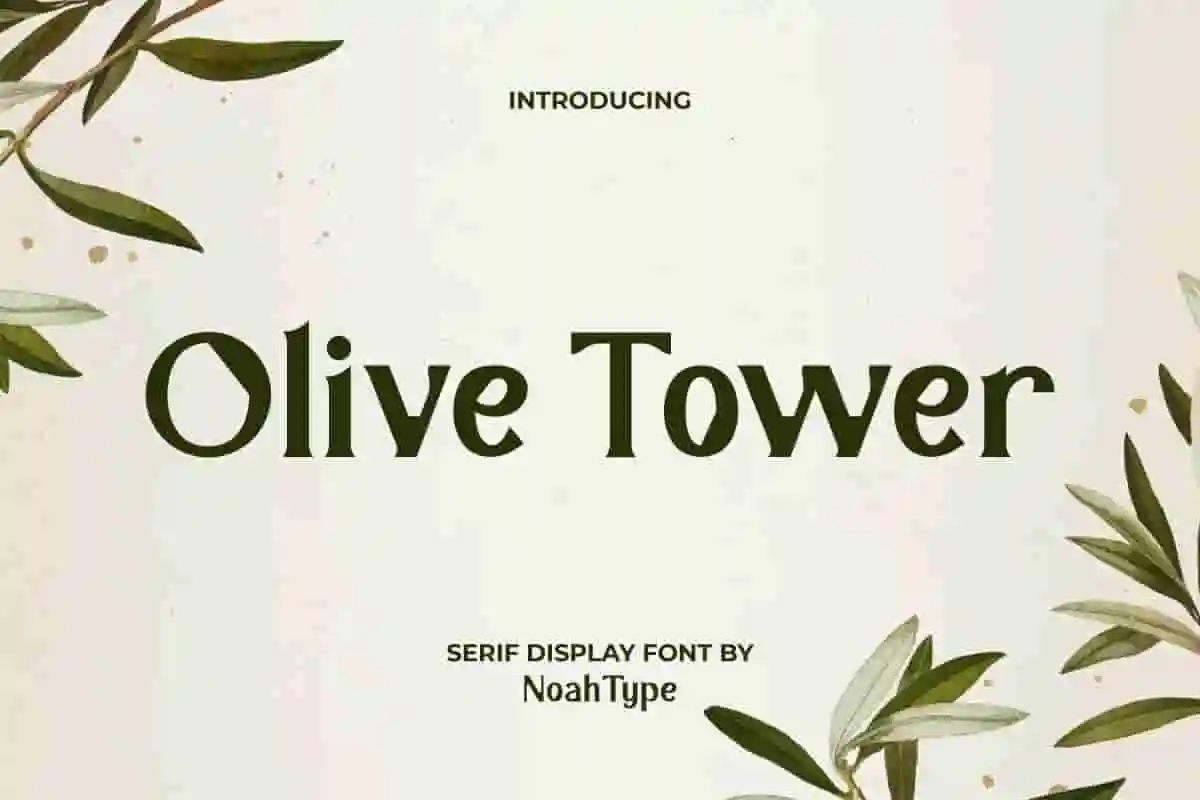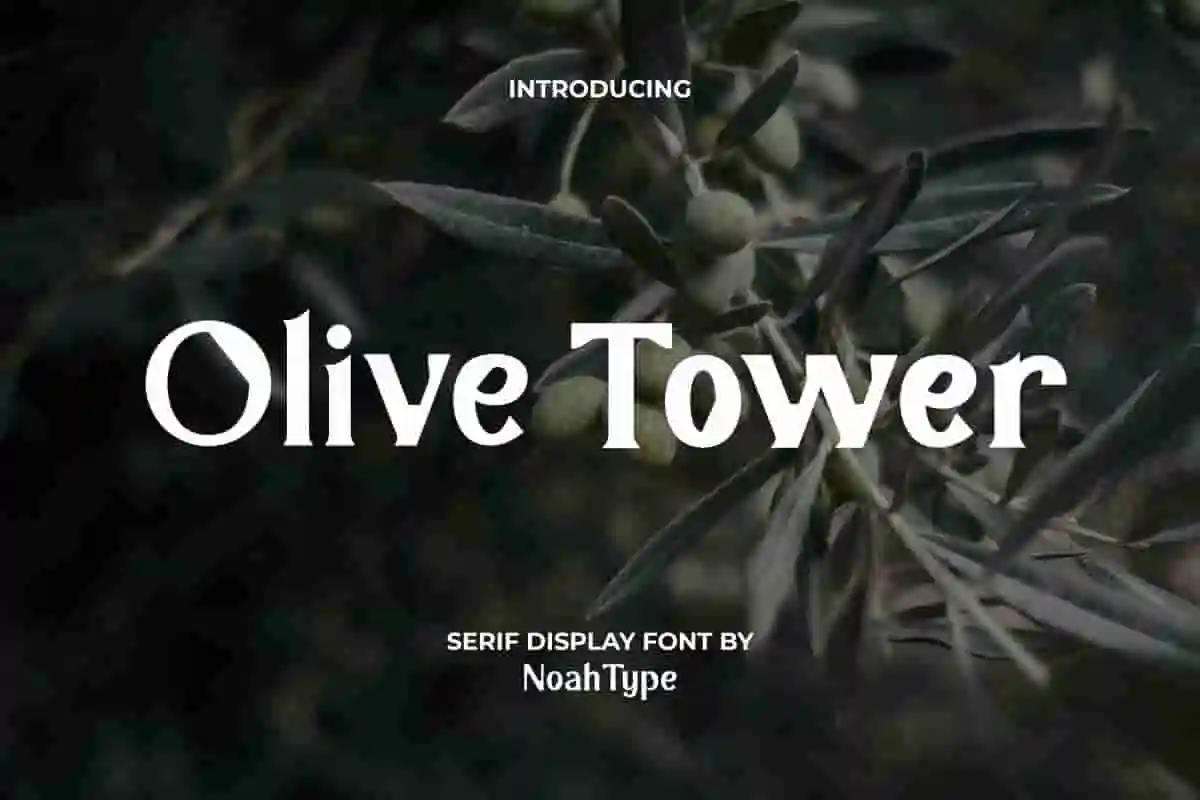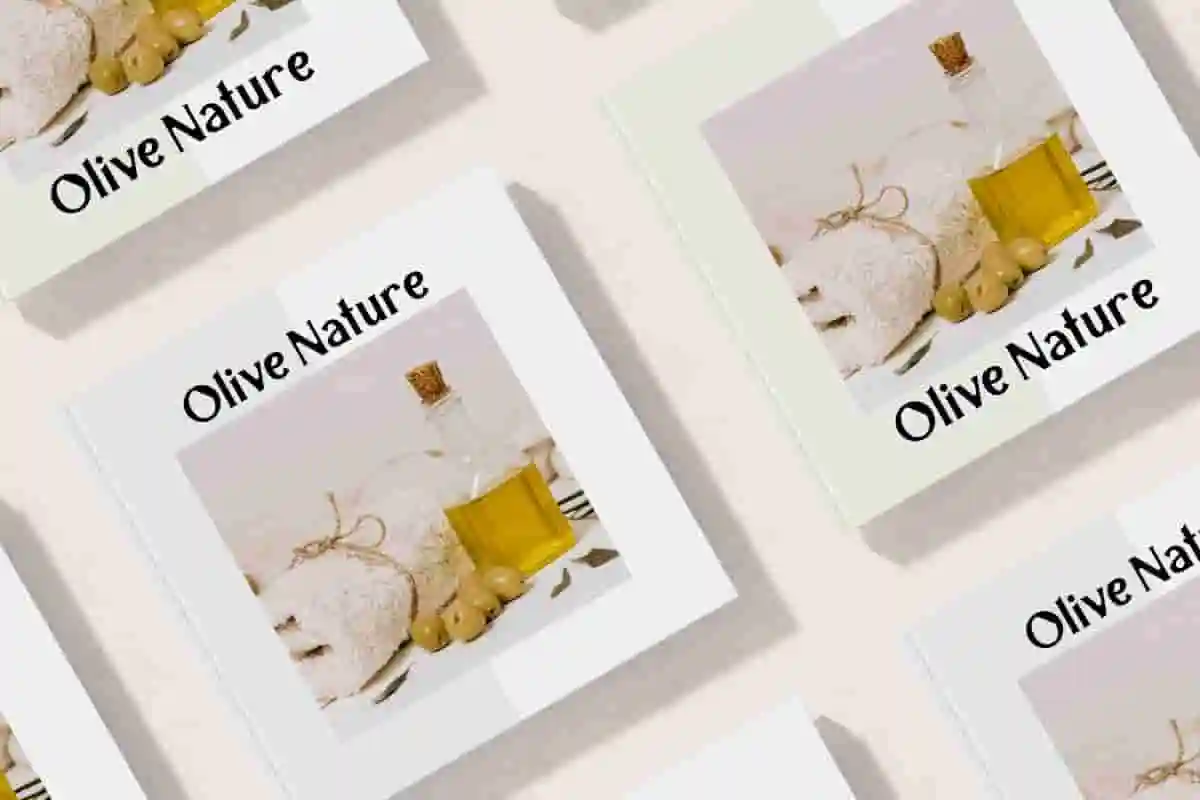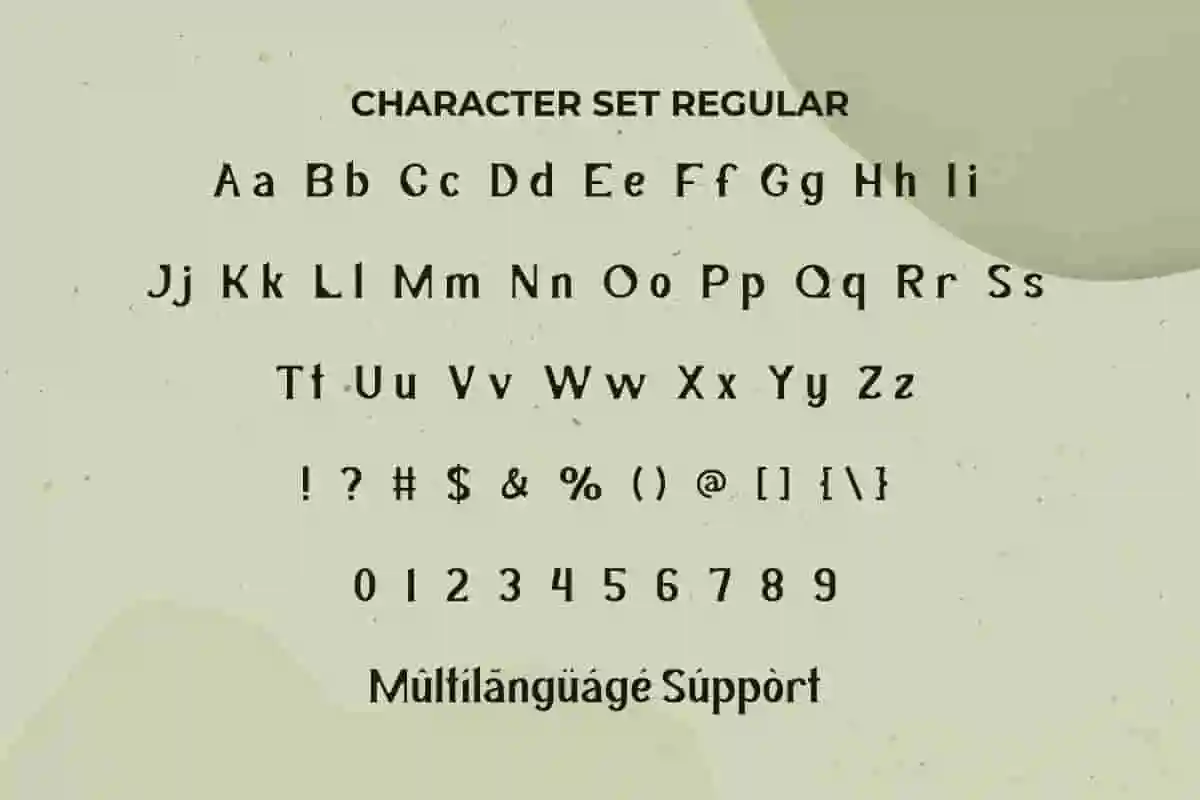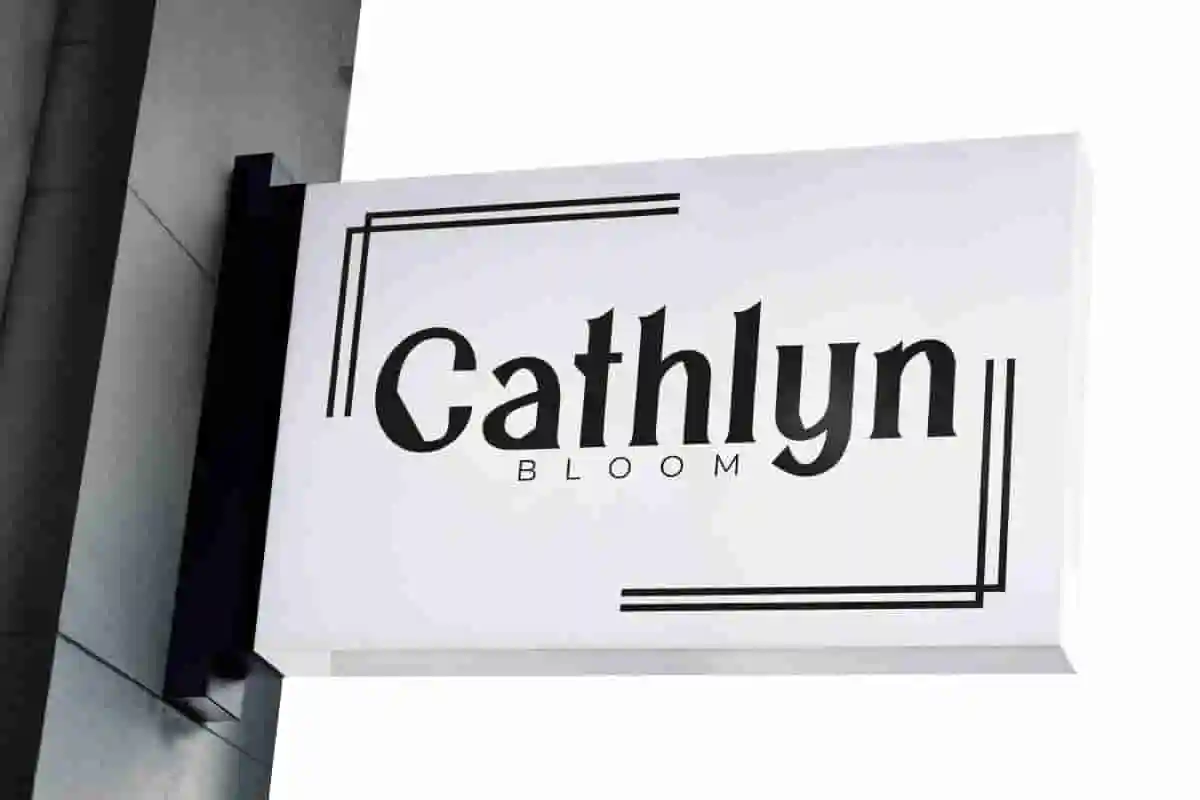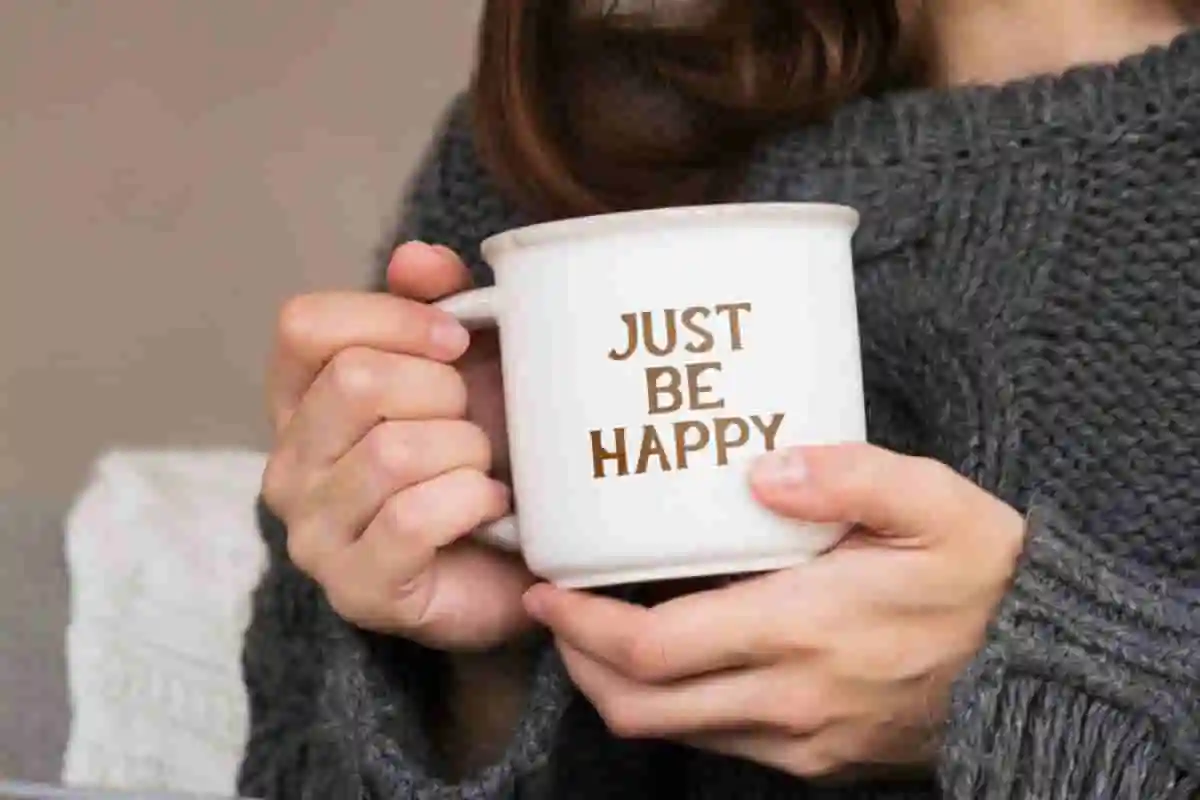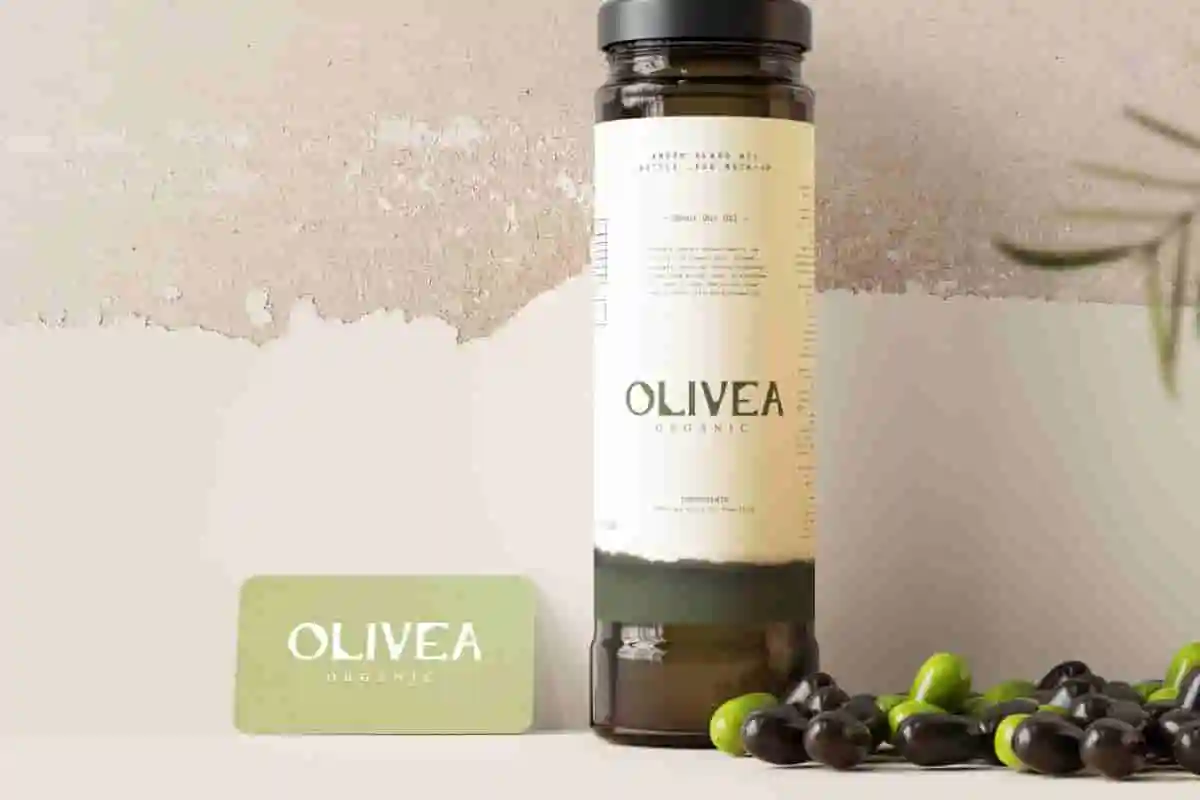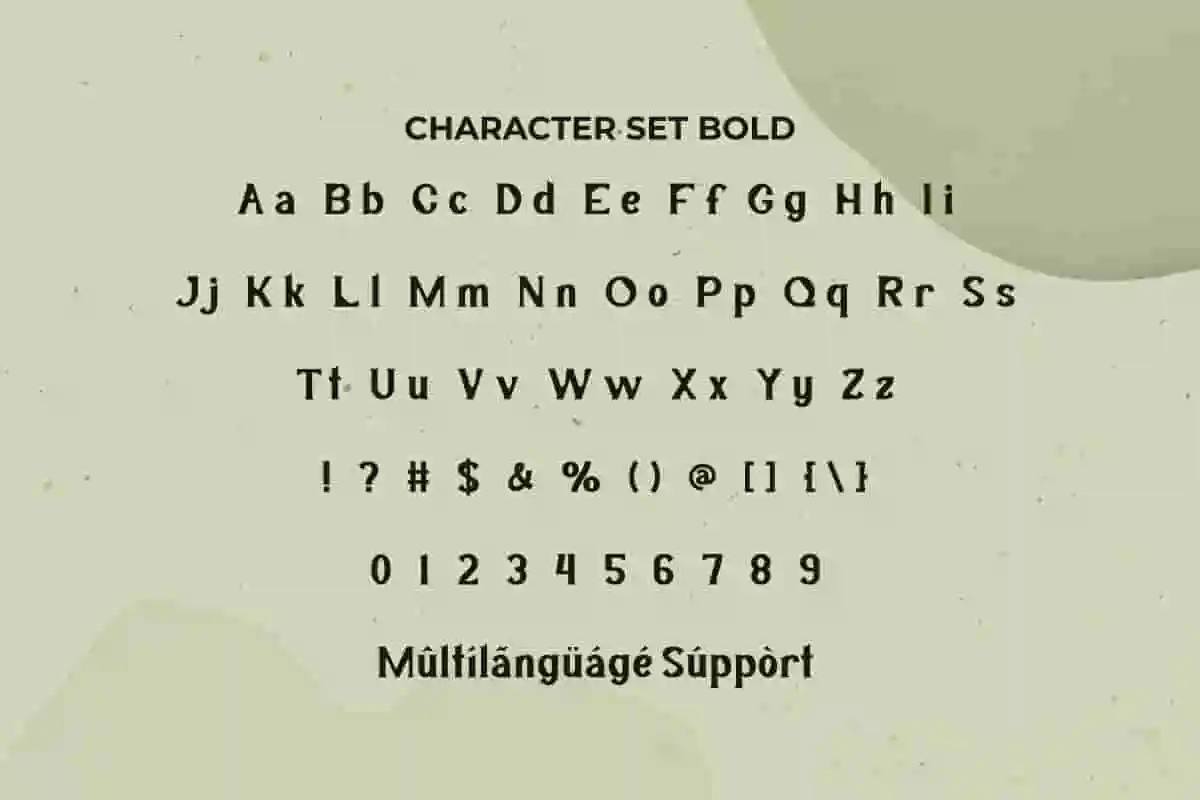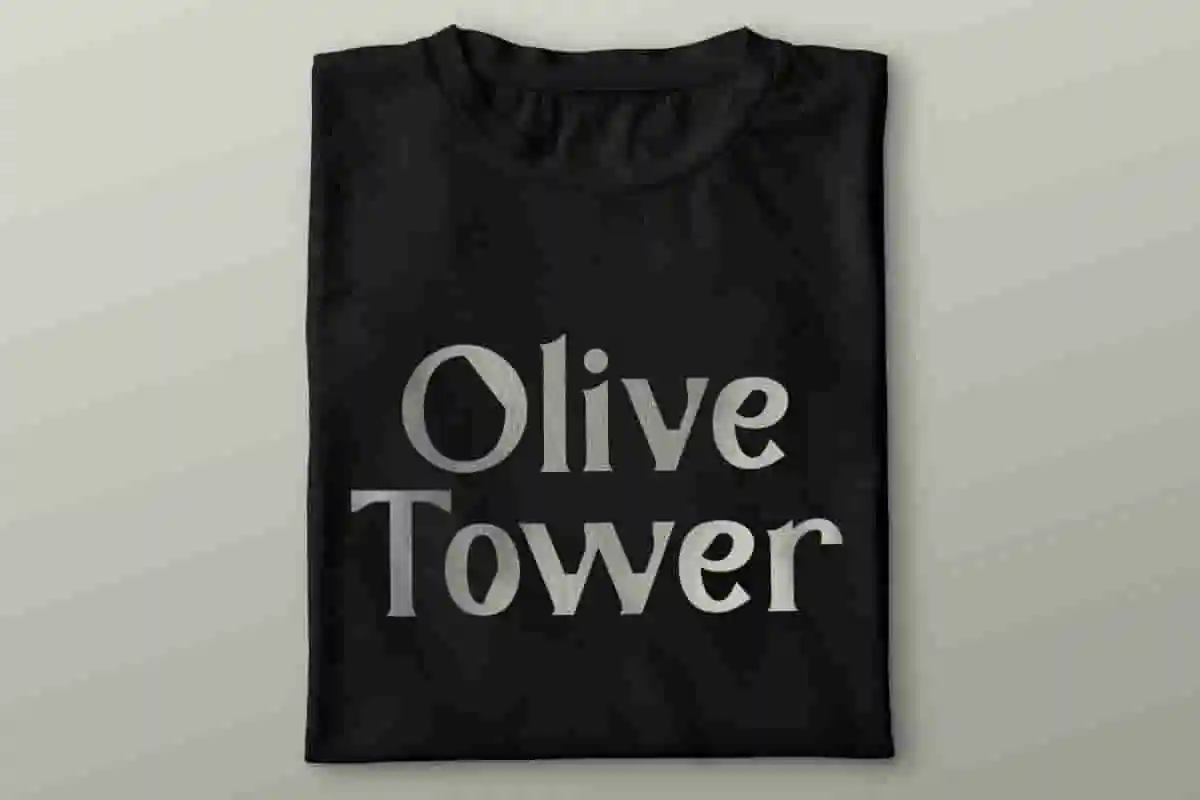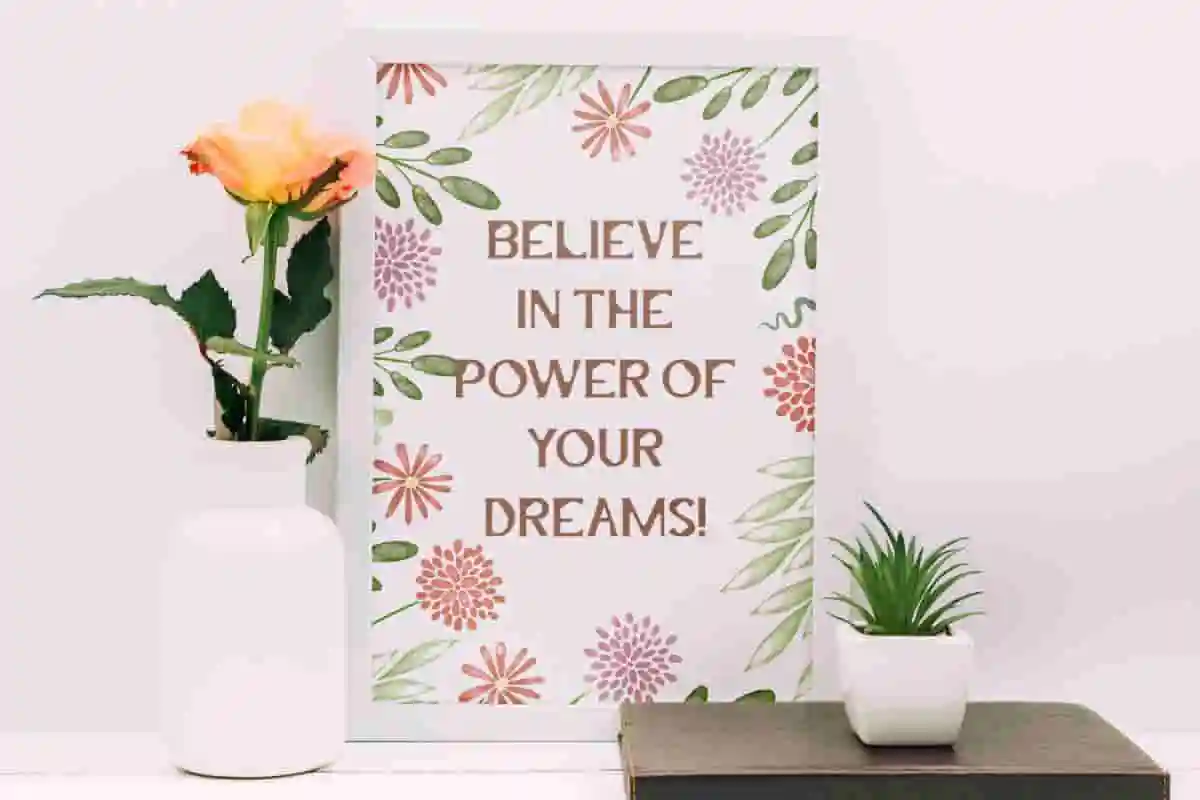
Olive Tower Font is a unique serif display font inspired from beautiful Olive Flower with special accent on its corner of the letters exclusively designed by NoahType. This font comes in two different styles : Regular and Bold. It would be the best choice for many industries, such as beauty product, fashion, florist, furniture, handicrafts, health clinic, spa and salon, printing, publishing, real estate, writer, and more!
Olive Tower Font include full set of Uppercase and Lowercase Basic Characters, Numerals and Punctuation. This font would be perfect for projects that require a modern and stylish feel, such as brand logo, calendar, catalog, label, header, mockup design, poster, product packaging, quotes, screen print, signage, stationery, website, etc.
Step into the world of elegance with Olive Tower Serif Display Font, a sophisticated typeface designed to make your projects stand out. Inspired by the charm of classical architecture and refined editorial layouts, Olive Tower blends bold serifs with graceful curves, creating a font that’s both powerful and stylish.